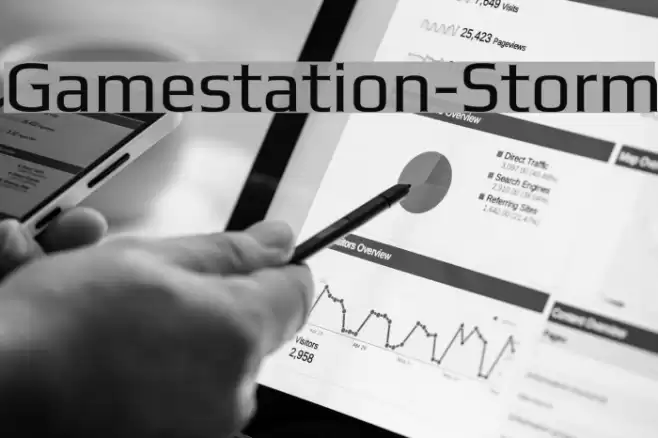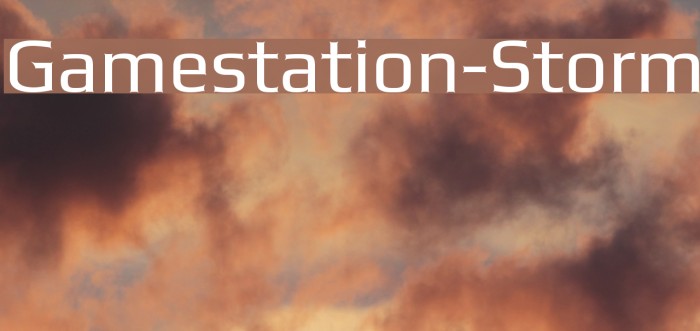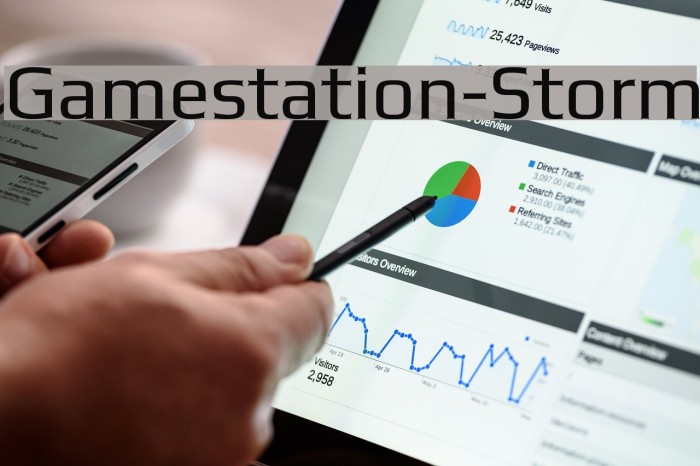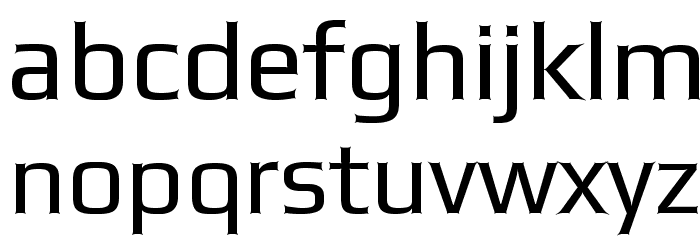
Gamestation-Storm Font
Gamestation-Storm Description
This font features a modern and sleek design with clean lines and a geometric structure. The uppercase letters are bold and assertive, while the lowercase letters maintain a consistent style, offering a harmonious balance. The numerals are clear and easy to read, making them suitable for digital displays. Special characters are well-integrated, maintaining the overall aesthetic. The font's design is versatile, making it ideal for both digital and print media, where clarity and modernity are essential.
A modern, geometric font with clean lines and balanced proportions from Uncategorized fonts.
- Proposed Projects: Ideal for tech branding, digital interfaces, video game titles, and modern advertising.
- Use Case: Headlines, Logos, Digital interfaces